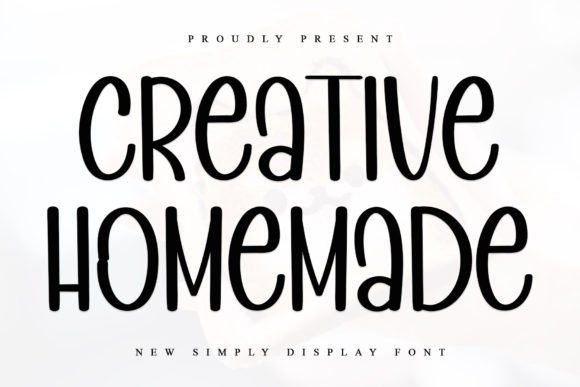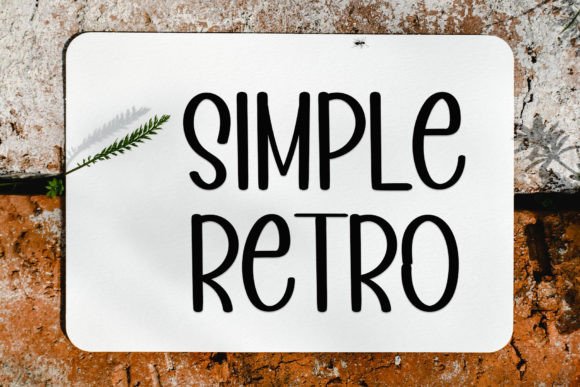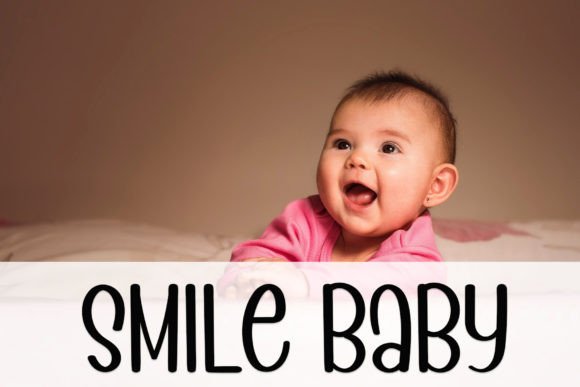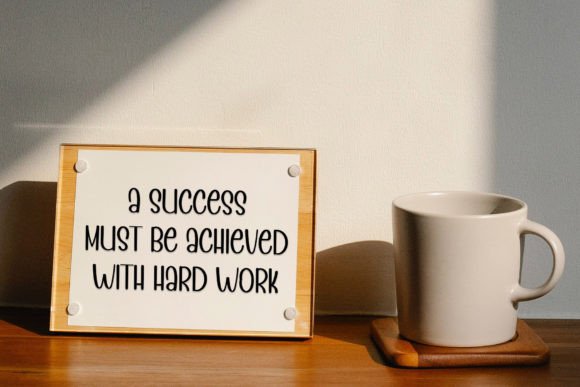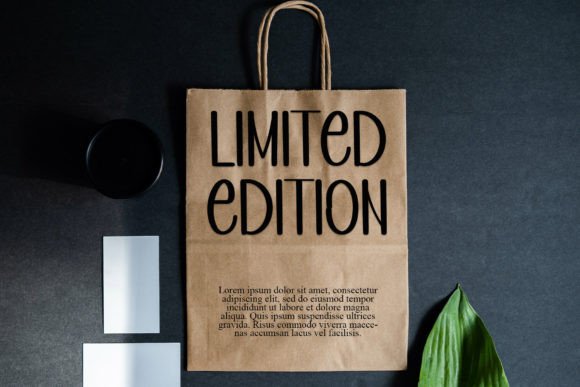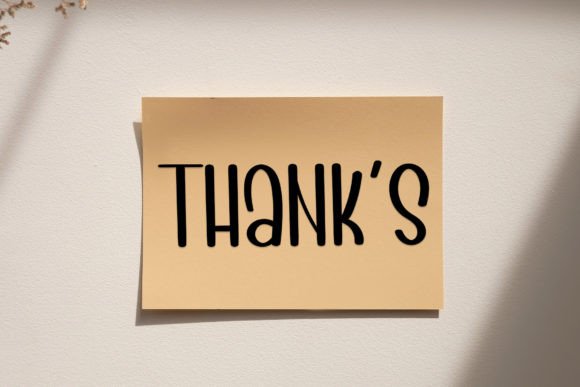
Bring Handwritten Charm to Your Designs
Have you ever found yourself in the midst of a creative storm, surrounded by scraps of paper, scribbled notes, and a dash of inspiration? It’s that magical moment when an idea strikes, and you can’t wait to bring it to life. For designers and crafty enthusiasts alike, the quest for the perfect font is a constant pursuit. That’s where the Creative Homemade Font comes in – a stylish and elegant writing font that’s sure to add a touch of whimsy to any design.
This modern and minimalist font is perfect for those who crave a handwritten look without the imperfections. From wedding invitations to business cards, the Creative Homemade Font is a versatile choice that will elevate your designs to the next level. Whether you’re a seasoned designer or a DIY enthusiast, this font is a valuable addition to your creative arsenal, offering endless possibilities for self-expression and creativity.
Creative Homemade Font Key Features
- Unique Characteristics: Distinctive handmade feel with irregular letterforms and subtle texture
- Language Support: Supports Latin-based languages, including English, Spanish, French, and many more
- Kerning and Ligatures: Includes custom kerning and ligatures for a more polished look
Design Review: Creative Homemade Font
I’ve had the chance to dive into the Creative Homemade Font, and I must say, it’s a mixed bag. There are some lovely aspects to it, but some limitations that might hold it back.
- ✨ Unique Character: The font has a quirky, handmade feel to it, which can be a great addition to designs that need a bit of personality.
- ✨ Expressive: The font’s irregularities make it perfect for titles or headings where you want to convey a sense of energy and creativity.
- ✨ Customizable: The font comes with a range of customization options, allowing you to tweak it to fit your design’s needs.
- ⚠️ Readability: While the font is expressive, it can be difficult to read at smaller sizes, which may limit its use in body text or other areas where readability is crucial.
- ⚠️ Consistency: The font’s irregularities can also make it inconsistent in certain contexts, which may not be ideal for designs that require a high level of professionalism.
Overall, the Creative Homemade Font is a great choice for designs that need a bit of personality and flair. However, it may not be the best option for more formal or professional projects where readability and consistency are key.
Alternatives to “Creative Homemade Font” for Designers
Great Vibes is a modern calligraphy font that works well for elegant, high-end designs. It’s ideal for wedding invitations, luxury branding, or any project that requires a touch of sophistication. Compared to Creative Homemade Font, Great Vibes is more polished and refined, making it a better choice for professional designs.
Pacifico is a beautiful script font that’s perfect for creating a relaxed, beachy vibe. It’s great for summer-themed designs, travel branding, or any project that needs a laid-back feel. Unlike Creative Homemade Font, Pacifico has a more natural, effortless look that’s perfect for casual designs.